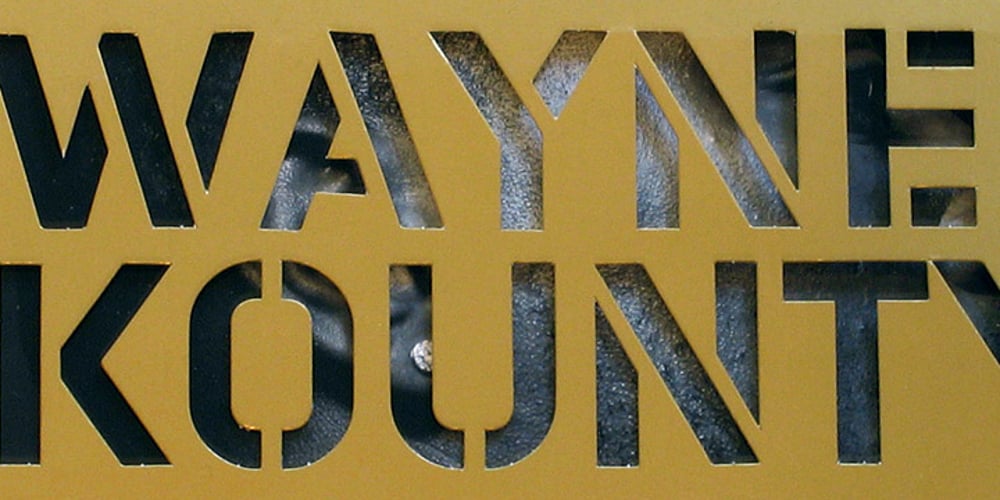
Mercado
Mercado font
Mercado Font Family was designed by Matthew Aaron Desmond and published by MADType. Mercado contains 9 styles and family package options. Mercado is a versatile stencil font family with 3 styles and 3 weights of each style. I was inspired by local boutique supermarkets to create a stencil font family with both upper and lowercase as well as a large international characterset. Mercado Regular can be used at small point sizes without the stencil gaps filling in. It also makes a bold statement when used large. Mercado Display with it’s precision slices is best used large, or in any design solution where the tight gaps will not become filled in. Mercado Sans is a quirky and strong sans serif based on the bones of the stencil version.